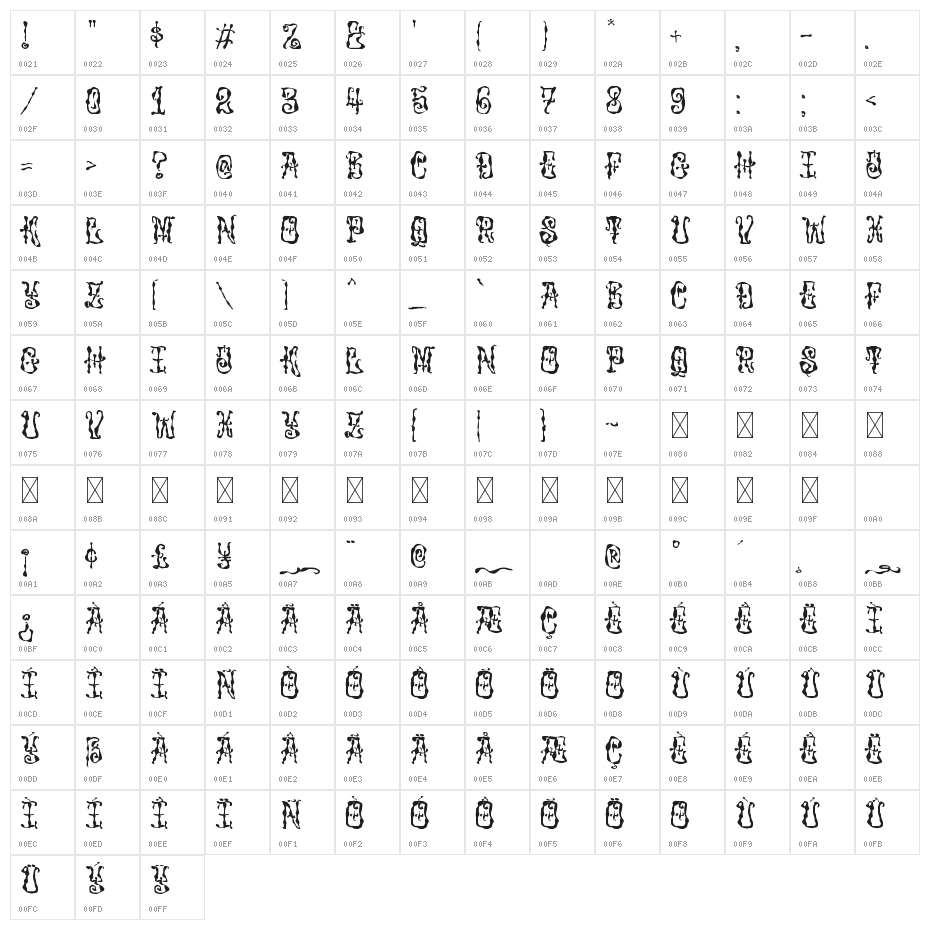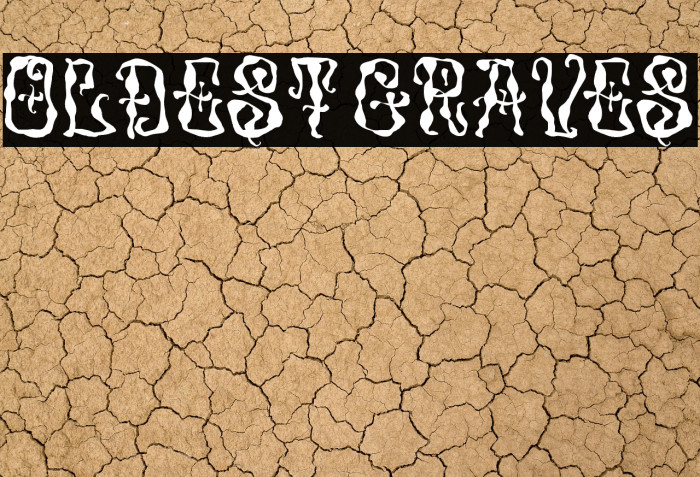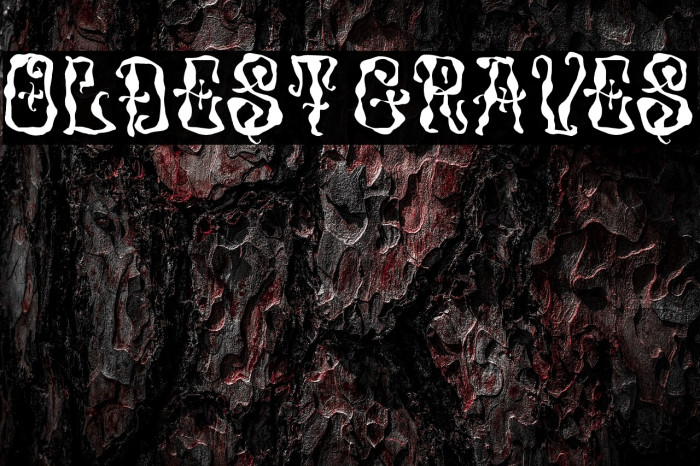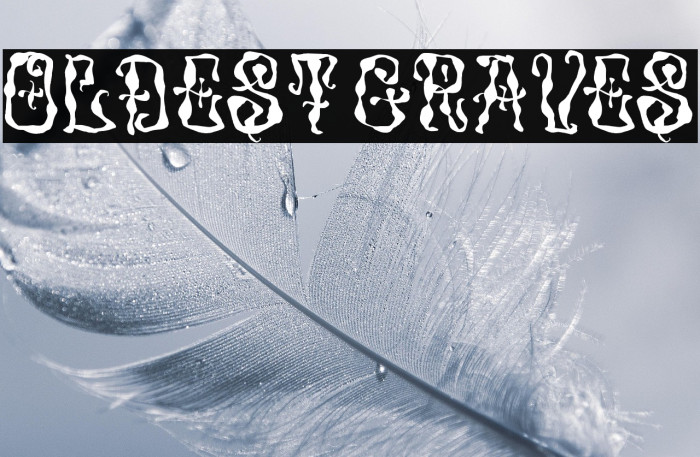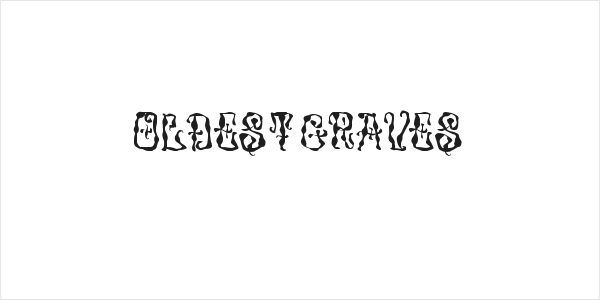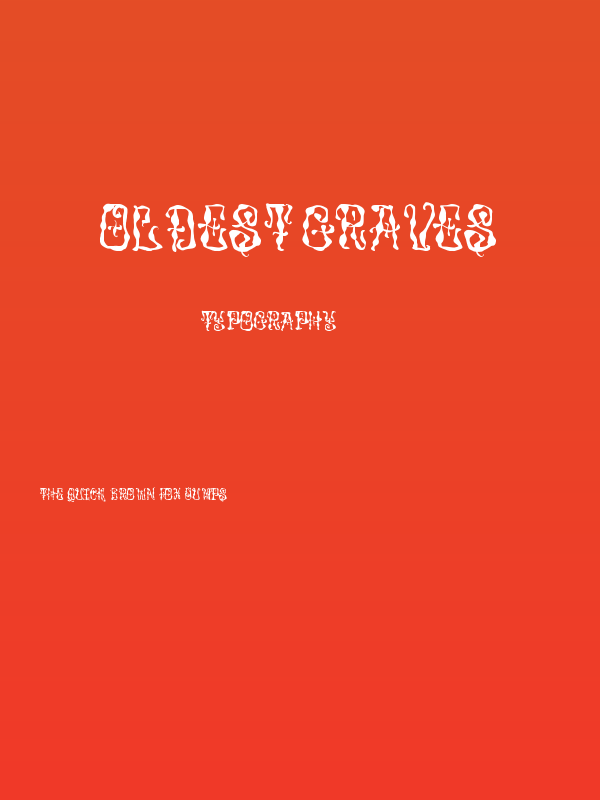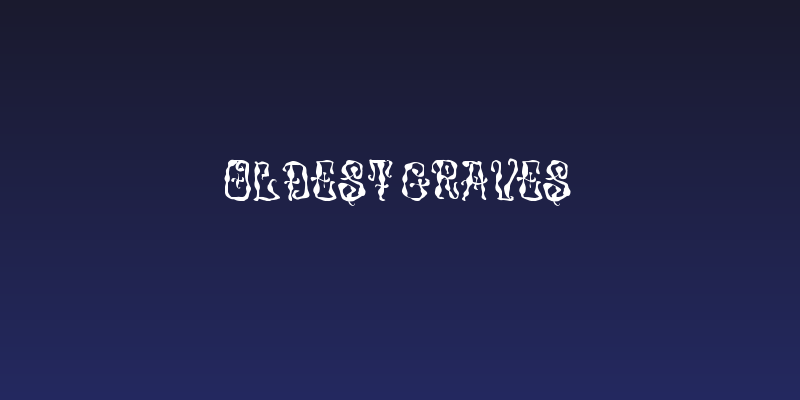
Oldest Graves Font
Oldest Graves Description
This font features a highly decorative and ornate style, reminiscent of gothic or horror themes. Each character is uniquely designed with intricate details and flourishes, giving it a mysterious and eerie appearance. The letters have a bold presence with irregular shapes and sharp edges, creating a sense of movement and drama. The numbers and special characters follow the same elaborate design, ensuring consistency throughout. This font is perfect for creating a spooky or vintage atmosphere, ideal for Halloween-themed projects or anything requiring a touch of the macabre.
| Overall Style | Gothic, Decorative |
| Use Case | Headlines, Posters, Themed Events |
| Proposed Projects | Ideal for Halloween invitations, horror movie posters, themed event flyers, or any project needing a gothic or eerie touch. |